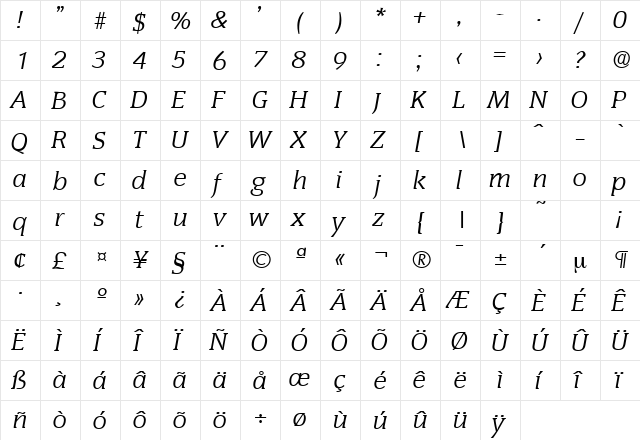
Congress-Serial RegularItalic
Design Context for Congress-Serial Typeface
Congress-Serial takes a measured approach to typography — its balanced proportions and neutral character make it a reliable workhorse for both digital and print work. The dynamic lean of this cut emphasises speed and emphasis in any layout.
Pro Tip: Try Congress-Serial for annotation and caption copy alongside an upright companion — the contrast in angle creates a dynamic but ordered typographic system.